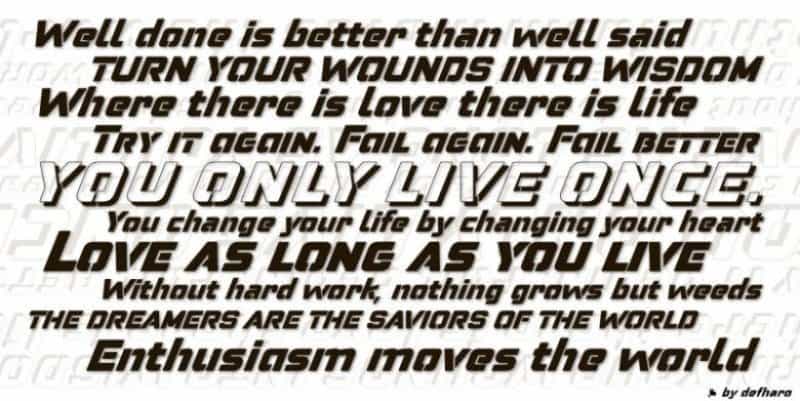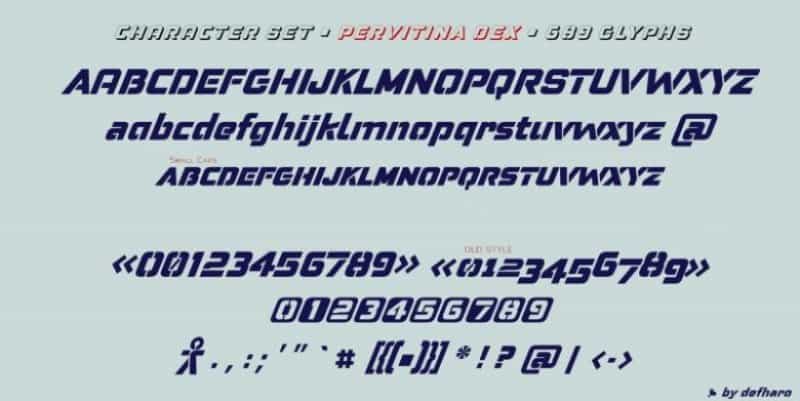
Discover Pervitina Dex Typeface, part of the Sans Serif Display Stencil Army collection—a versatile and unique font perfect for adding a personal touch to your projects. Download it for free and enjoy crafting designs with style, from invitations to social media posts. This font is available exclusively for personal use, giving you the freedom to create without limits. Unlock your creativity with Pervitina Dex Typeface today!
Pervitina Dex is a thick inclined at 22° and Neo-Stencil style poster with rounded corners, including small letters, several sets of numerals, bitcoin, and other cryptocurrencies. A font developed only for logos and headlines, having excellent readability and the perfect Kerning.